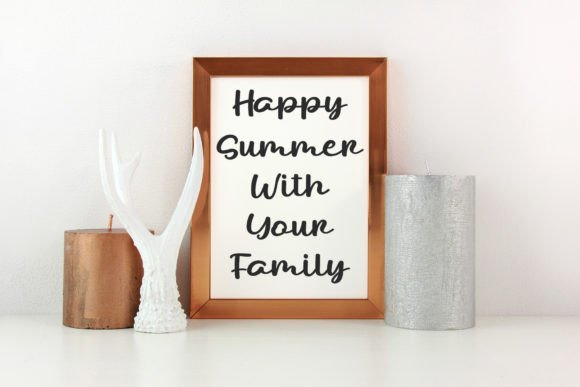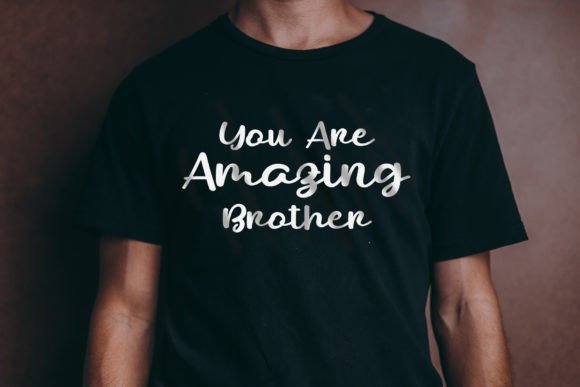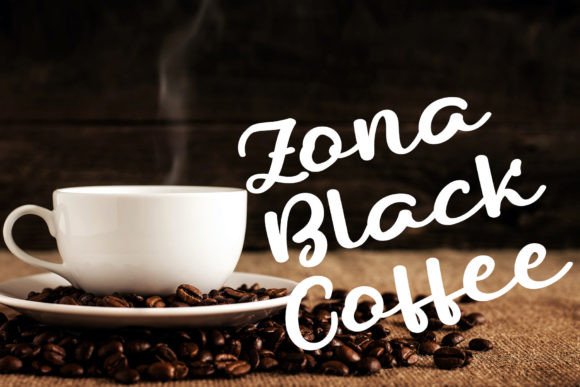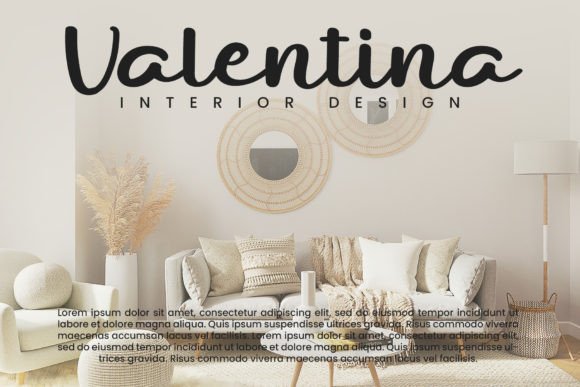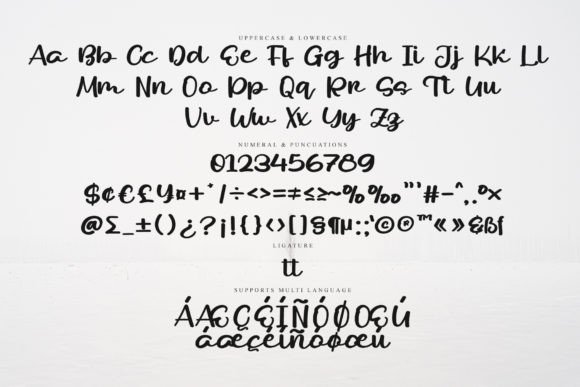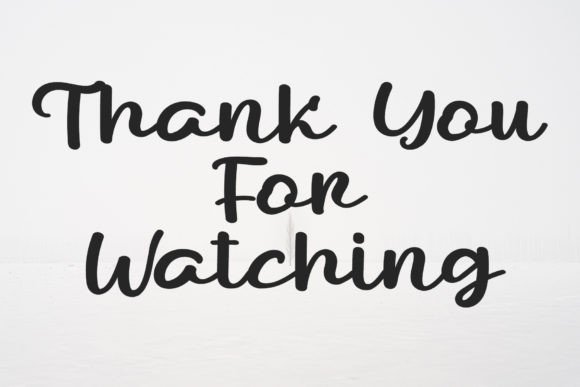
Introduction to Good Daddy Font
Good Daddy is a fun and friendly handwritten font.
Use it to turn any design idea into a true standout Get inspired by its unique charm and create lovely designs.
Key Features of Good Daddy Font
Why Choose Good Daddy Font?
Good Daddy Font offers exceptional quality and versatility, making it a valuable addition to your design toolkit. Whether you’re creating for personal projects or commercial use, Good Daddy Font delivers professional results.